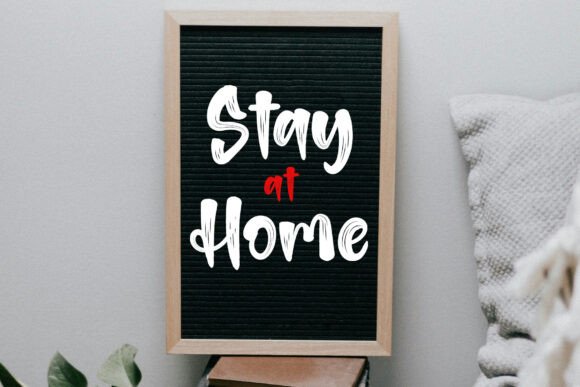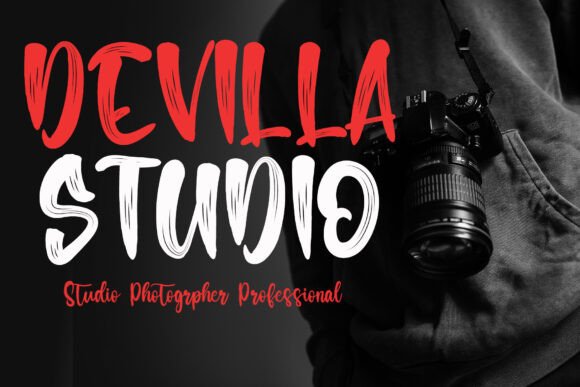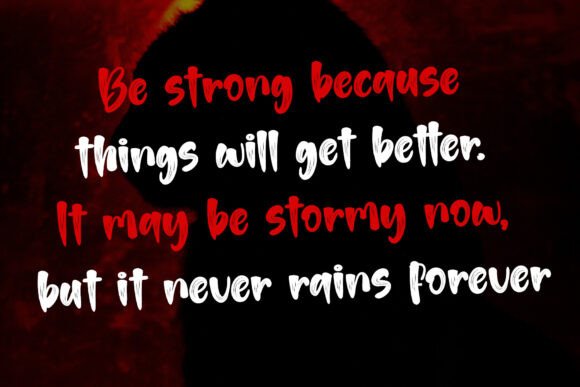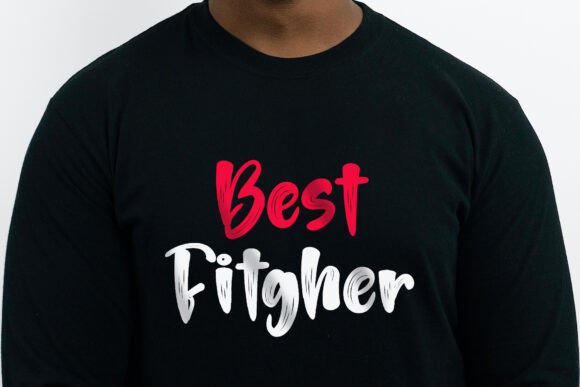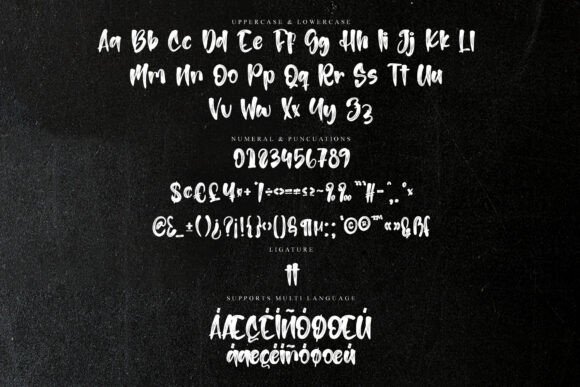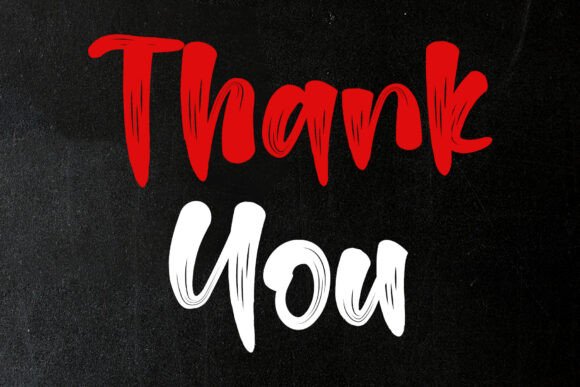
Unleash Your Creativity with Brush Master Font
Are you tired of using the same old fonts for your creative projects? Look no further than Brush Master Font, an incredibly unique display font that is sure to take your designs to the next level. Masterfully designed to become a true favorite, this font has the potential to bring each of your creative ideas to the highest level!
What Makes Brush Master Font So Special?
Brush Master Font is a one-of-a-kind display font that boasts a distinctive, hand-brushed look. Its unique texture and fluid strokes give it a personal touch that’s hard to find in other fonts. Whether you’re a designer, crafter, or DIY enthusiast, this font is sure to add a touch of personality to your projects.
Key Features of Brush Master Font
- Unique Display Font: Brush Master Font is designed to make a statement. Its bold, eye-catching design is perfect for headlines, titles, and other display text.
- Hand-Brushed Texture: The font’s hand-brushed texture gives it a personal, organic feel that’s perfect for crafty, DIY projects.
- Fluid Strokes: The font’s fluid strokes and smooth curves make it easy to read and visually appealing.
- Highly Versatile: Brush Master Font can be used for a wide range of projects, from branding and advertising to crafting and scrapbooking.
Brush Master Font is a dream come true for designers and crafters who are looking for a unique and versatile font to add to their toolkit. Whether you’re creating a logo, brochure, or social media graphic, this font is sure to make your design stand out.
Use Brush Master Font for:
- Branding and Advertising: Use Brush Master Font to create eye-catching logos, business cards, and brochures that showcase your brand’s personality.
- Crafting and Scrapbooking: Add a personal touch to your scrapbook pages, journal entries, and craft projects with Brush Master Font.
- Social Media Graphics: Use Brush Master Font to create engaging social media graphics, such as Facebook posts, Instagram stories, and Twitter headers.
Tips for Using Brush Master Font
To get the most out of Brush Master Font, here are a few tips to keep in mind:
- Use it sparingly: Brush Master Font is a bold, attention-grabbing font that’s best used sparingly. Use it for headlines and titles, and pair it with a simpler font for body text.
- Experiment with colors: Brush Master Font looks great in a variety of colors, from bold and bright to soft and pastel. Experiment with different colors to find the perfect look for your project.
- Pair it with other fonts: Brush Master Font pairs well with a variety of other fonts, from simple sans-serifs to elegant scripts. Experiment with different font combinations to find the perfect look for your project.